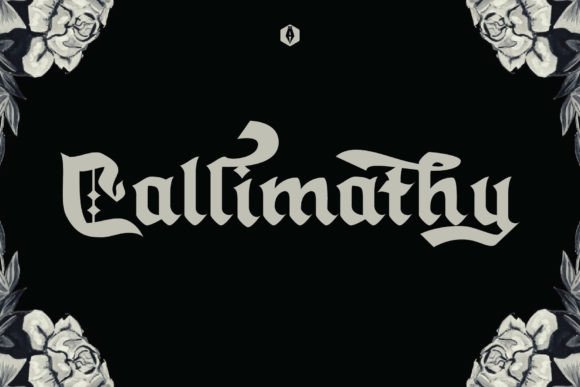
The Callimathy Font: A Stylish Blackletter Revelation
I’ll never forget the design struggle I faced while working on a product packaging project for a crafty client. The brief was simple: create a bold, eye-catching label that would make their handmade candles stand out on store shelves. But, as I scrolled through my font library, I couldn’t find the perfect fit. That’s when I stumbled upon Callimathy, a splendid blackletter font that would change the game. In this article, I’ll share my experience with Callimathy, its features, and how to make the most of this stunning font.
An Honest Review of Callimathy
- ✨ Stylish features: Callimathy boasts an impressive range of stylistic alternates, swashes, and ligatures that add a touch of elegance to any design.
- ✅ Bold and daring: This blackletter font is perfect for making a statement, adding a sense of drama and sophistication to your projects.
- 💡 Versatility: Callimathy can be used for various design applications, from product packaging and branding to posters and invitations.
While Callimathy is an excellent font, there are a few things to keep in mind:
- 🤔 Legibility at small sizes: As with many blackletter fonts, Callimathy can be challenging to read at small sizes. Make sure to test it at different sizes to ensure it’s legible for your specific project.
- ⚠️ Glyph compatibility: Some glyphs might not work seamlessly with certain design software or platforms. Be sure to check compatibility before diving into your project.
The Backstory of Callimathy
Callimathy was designed by a talented typographer who drew inspiration from traditional blackletter scripts. The font’s creator aimed to craft a bold, yet elegant font that would add a touch of sophistication to any design. With its range of stylistic alternates and OpenType features, Callimathy has become a go-to font for designers seeking a stylish, high-end look.
Q: What is Callimathy’s personality?
A: Callimathy is a bold, elegant blackletter font with a sophisticated personality. It’s perfect for designs that require a touch of drama and luxury.
Q: Is Callimathy suitable for body text?
A: While Callimathy is a beautiful font, it’s not ideal for body text due to its bold, blackletter style. It’s better suited for headlines, titles, or short paragraphs.